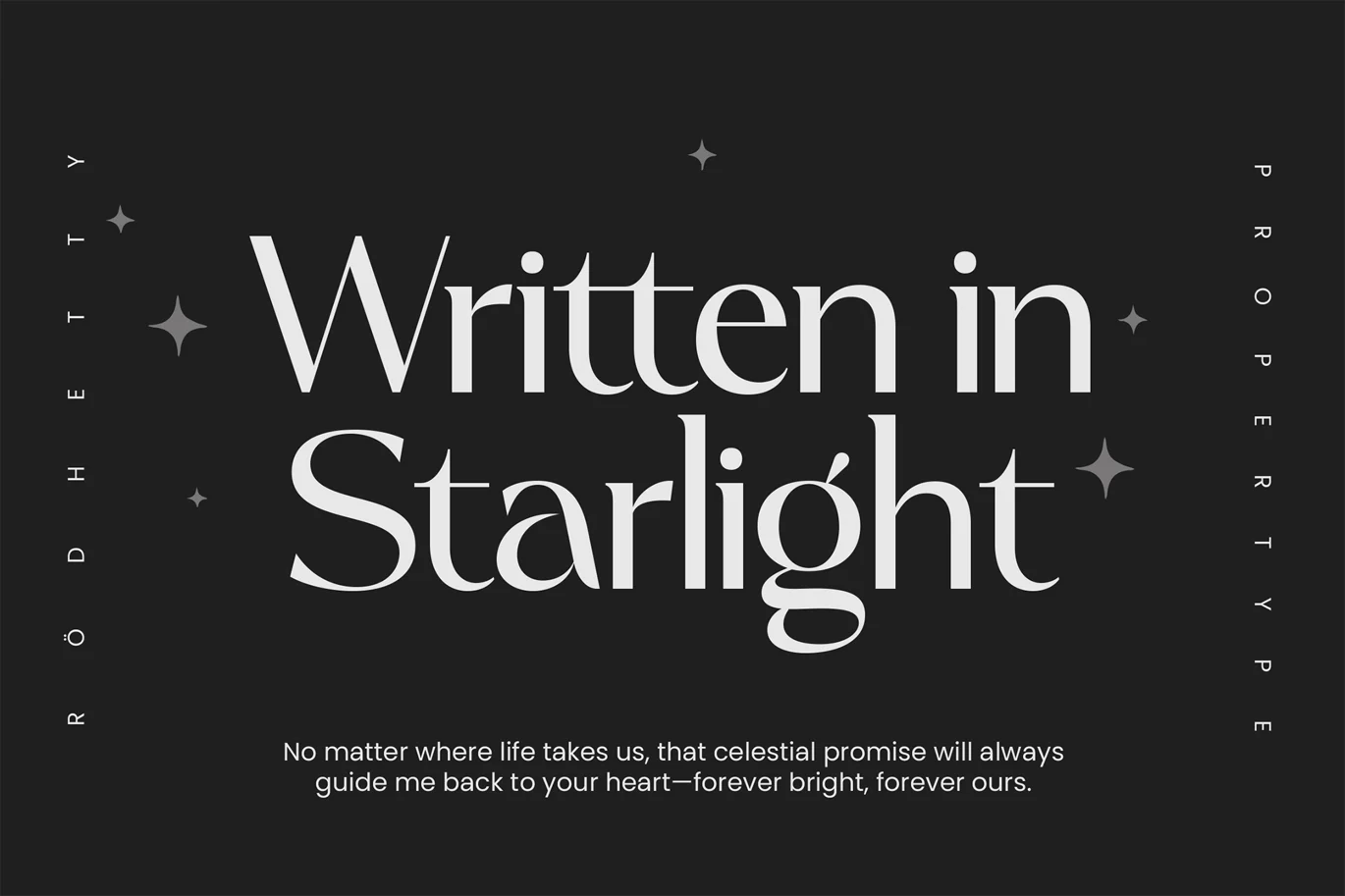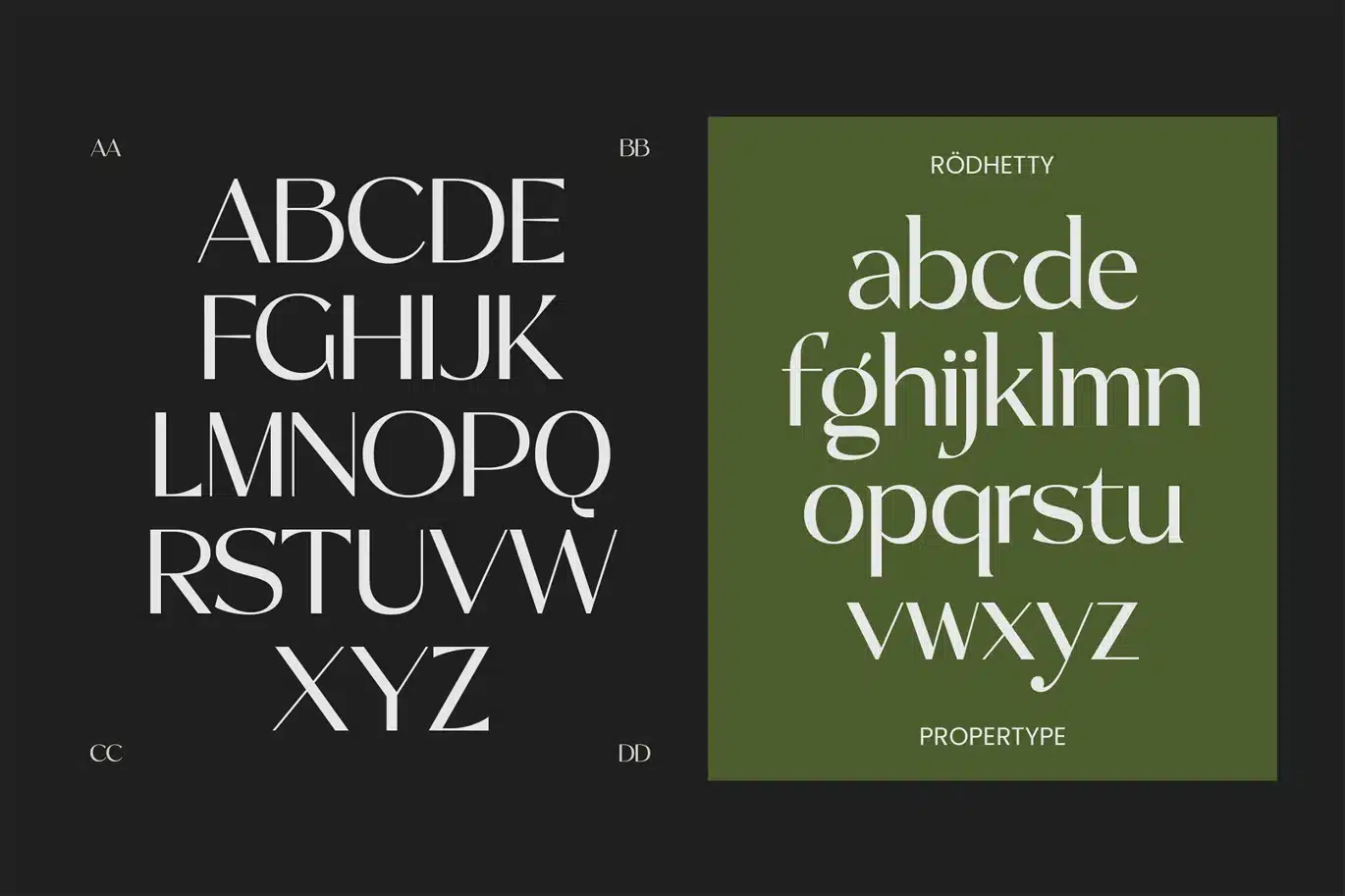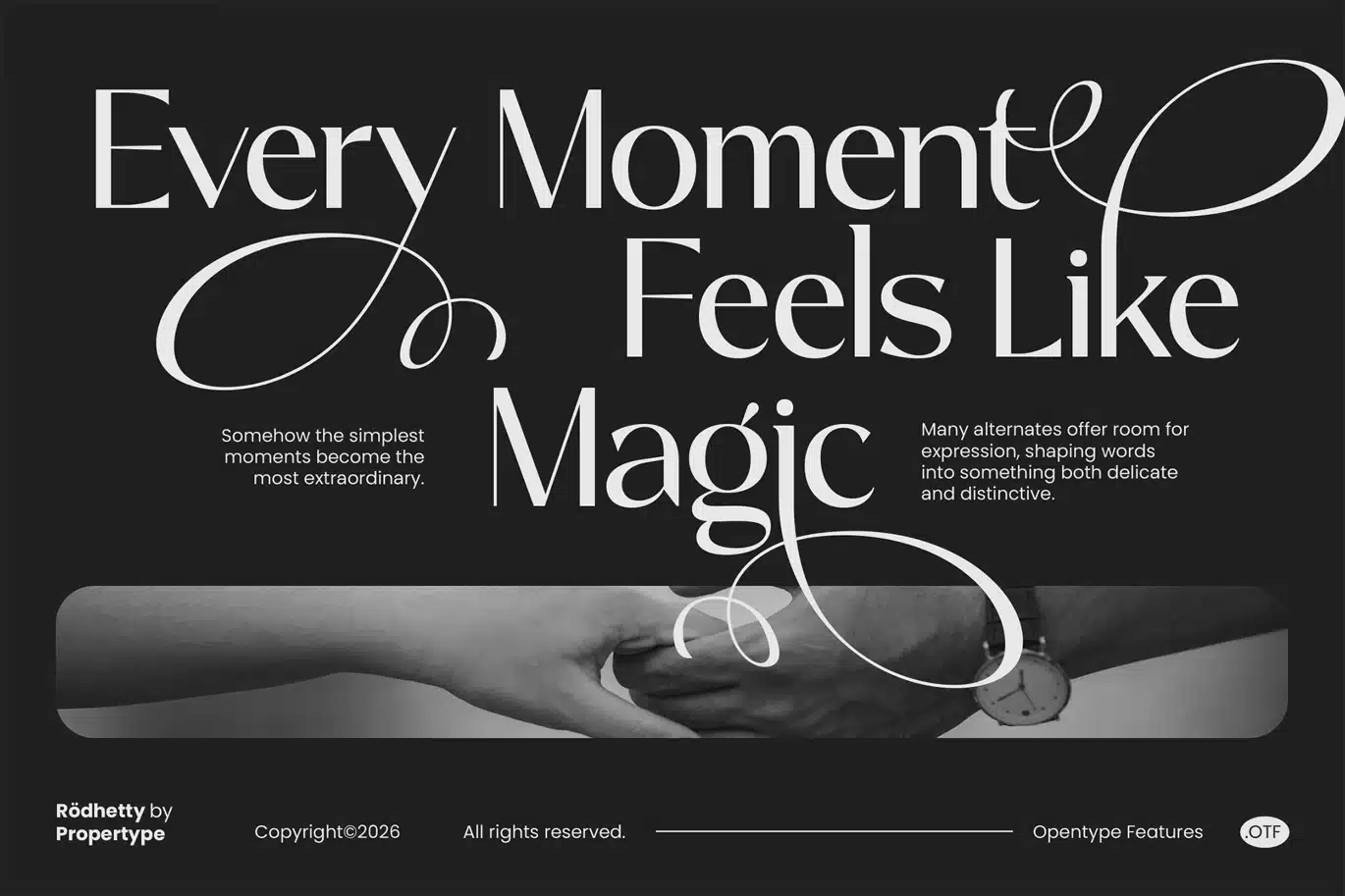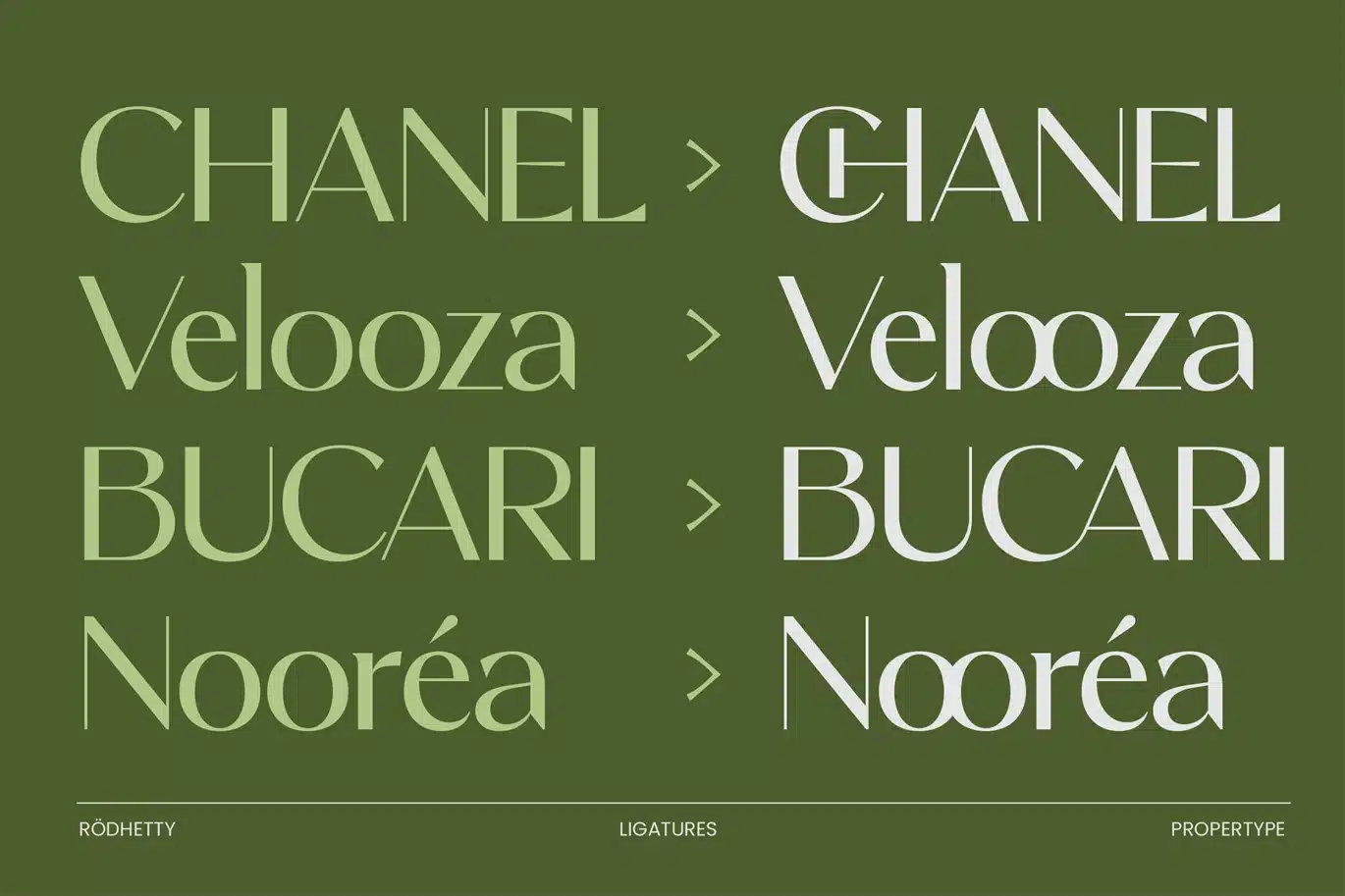
Rodhetty Font
Rodhetty is an Elegant Display Font that features Contrast Lines and George curved terminals that give a sleek and elegant look to logos, holiday cards, wedding invitations, quotes, advertisements, and more.
Rodhetty has a full set of modern uppercase and lowercase letters, numbers, punctuation, and multilingual symbols. Includes opentype features like ligatures, alternates, and more.